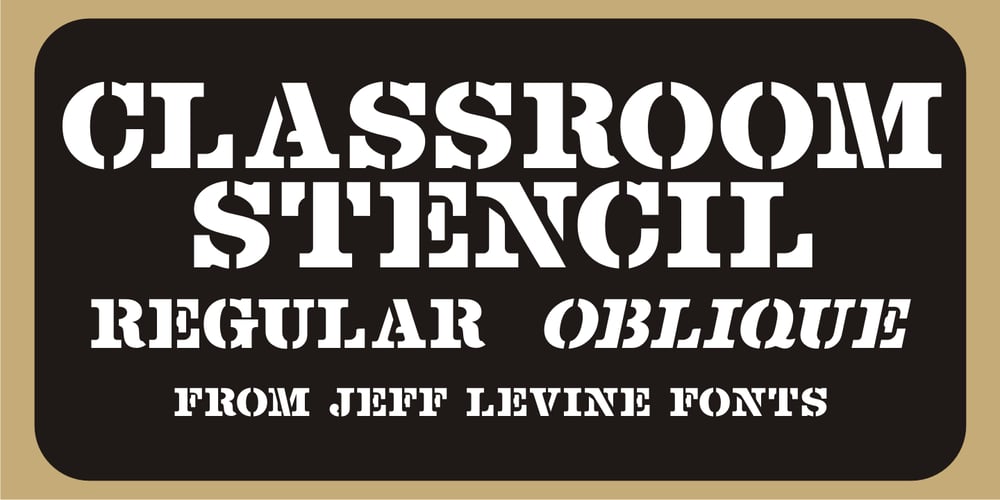
Classroom Stencil JNL Font Family was designed by Jeff Levine and published by Jeff Levine. Classroom Stencil JNL contains 2 styles and family package options. Roman-style stencil fonts have been around for much longer than most people realize – from the interlocking brass stencils of the 1880s to the laser-cut plastic stencils of today. A 1 inch Roman lettering guide [die-cut from oil board with spacing holes for correct alignment] made by the now-defunct Zipatone Corporation in the 1970s was a clone of an existing design of another company; but with variations in certain character shapes. This then became the working model for Classroom Stencil JNL, which is available in both regular and oblique versions.